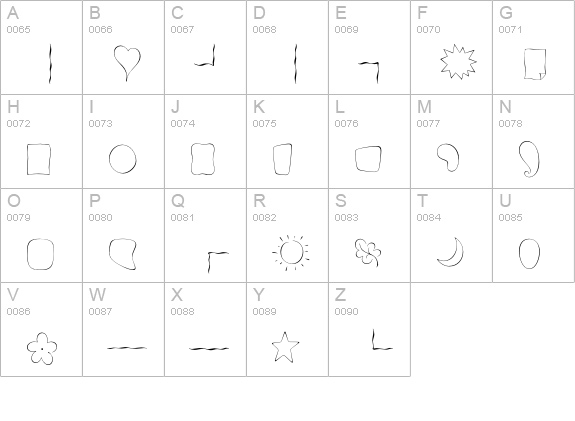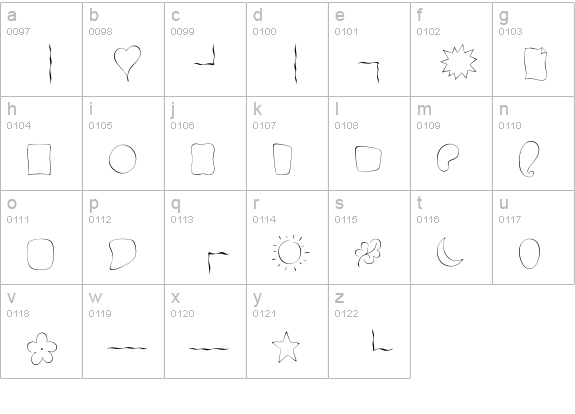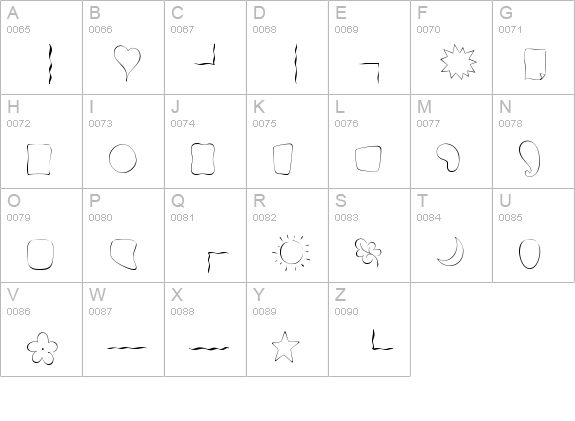
Fontesque-OrnamentsFine is a stunning and intricate font that exudes elegance and sophistication. With its delicate ornamental details and fine lines, this font is perfect for adding a touch of luxury to your designs. Whether you are working on wedding invitations, branding materials, or any other project that requires a touch of class, Fontesque-OrnamentsFine is sure to elevate your work to the next level. The best part? Fontesque-OrnamentsFine is completely free to download at FontsMarket.com. This means that you can easily access this beautiful font without having to worry about breaking the bank. So go ahead and enhance your designs with the timeless beauty of Fontesque-OrnamentsFine today!